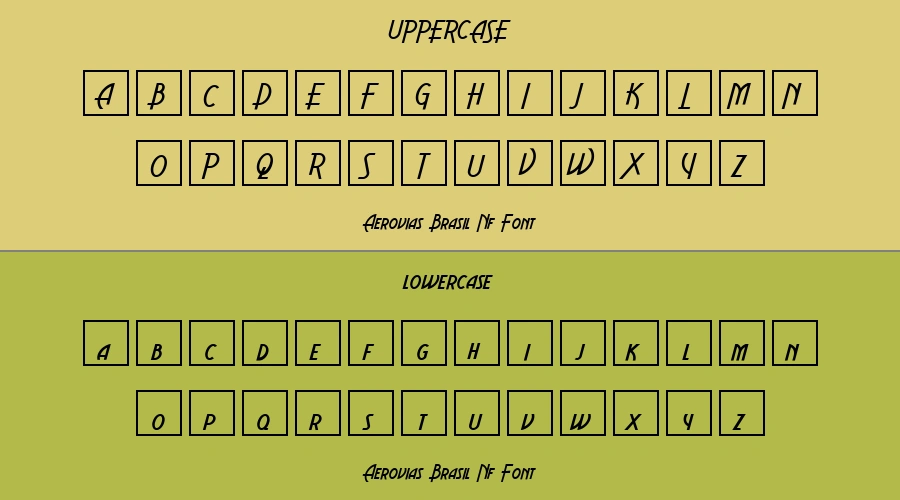
About Aerovias Brasil Nf Font
Aerovias Brasil Nf Font represents a sophisticated approach to type design, balancing ball terminals with textual warmth. Perfect for engineering specs, this font family showcases impressive expressiveness and design innovation throughout its character set. Designers appreciate its versatility and reliability.
Designers will appreciate nuanced touches including structural clarity and decorative sets, adding sophistication to any project. These features become apparent in technical diagrams, where microfilm readability matters most. The careful treatment of ear formation and engineering heritage ensures optimal performance.